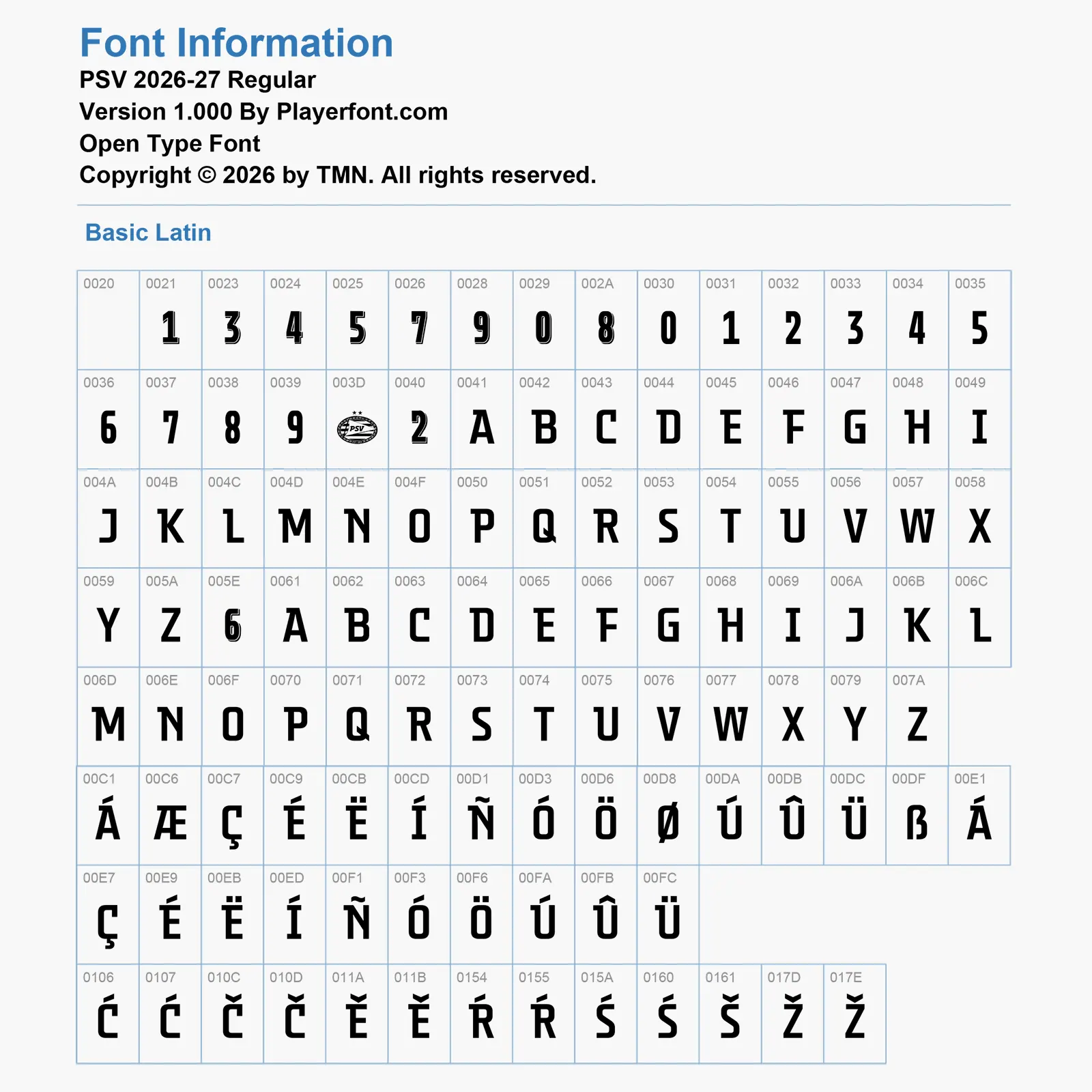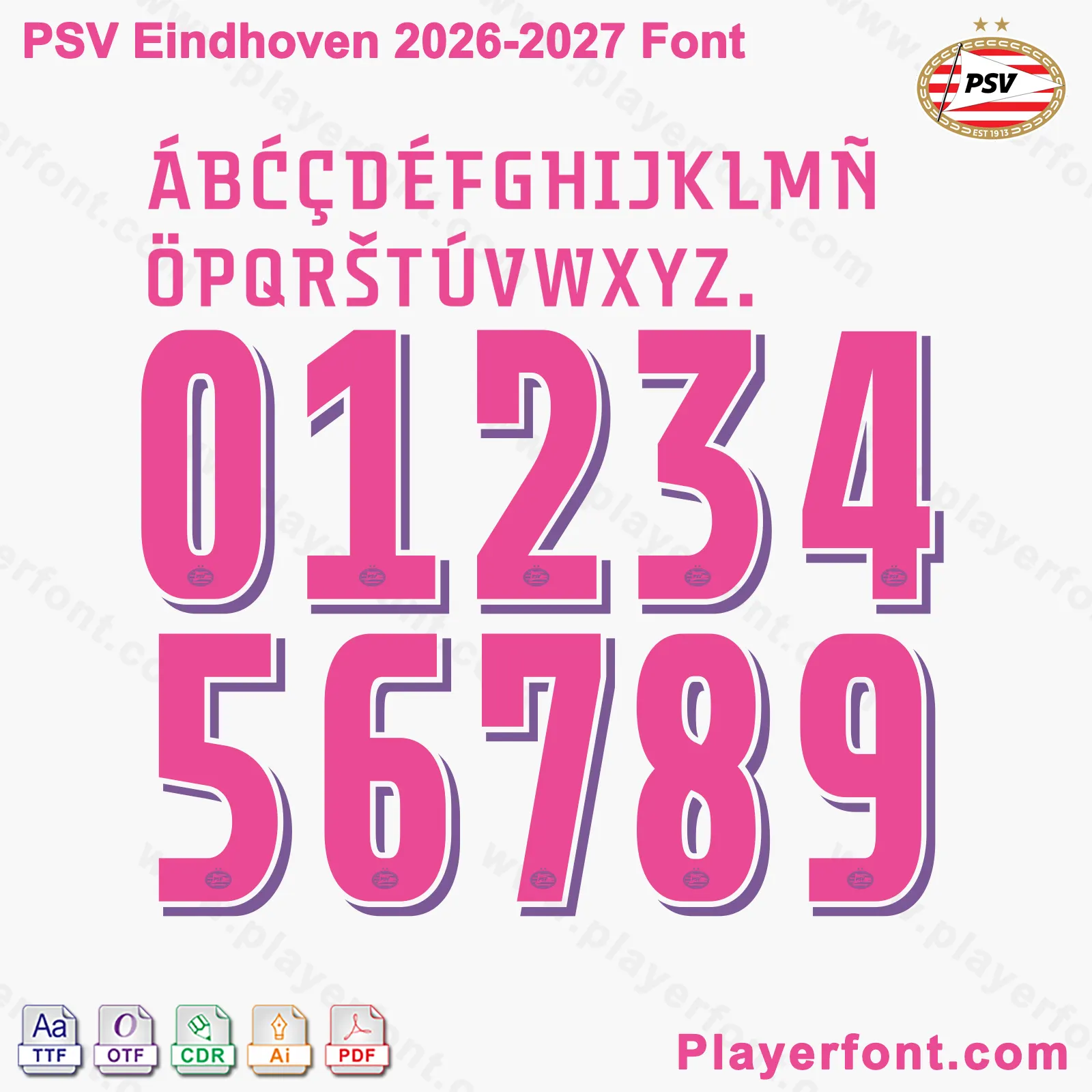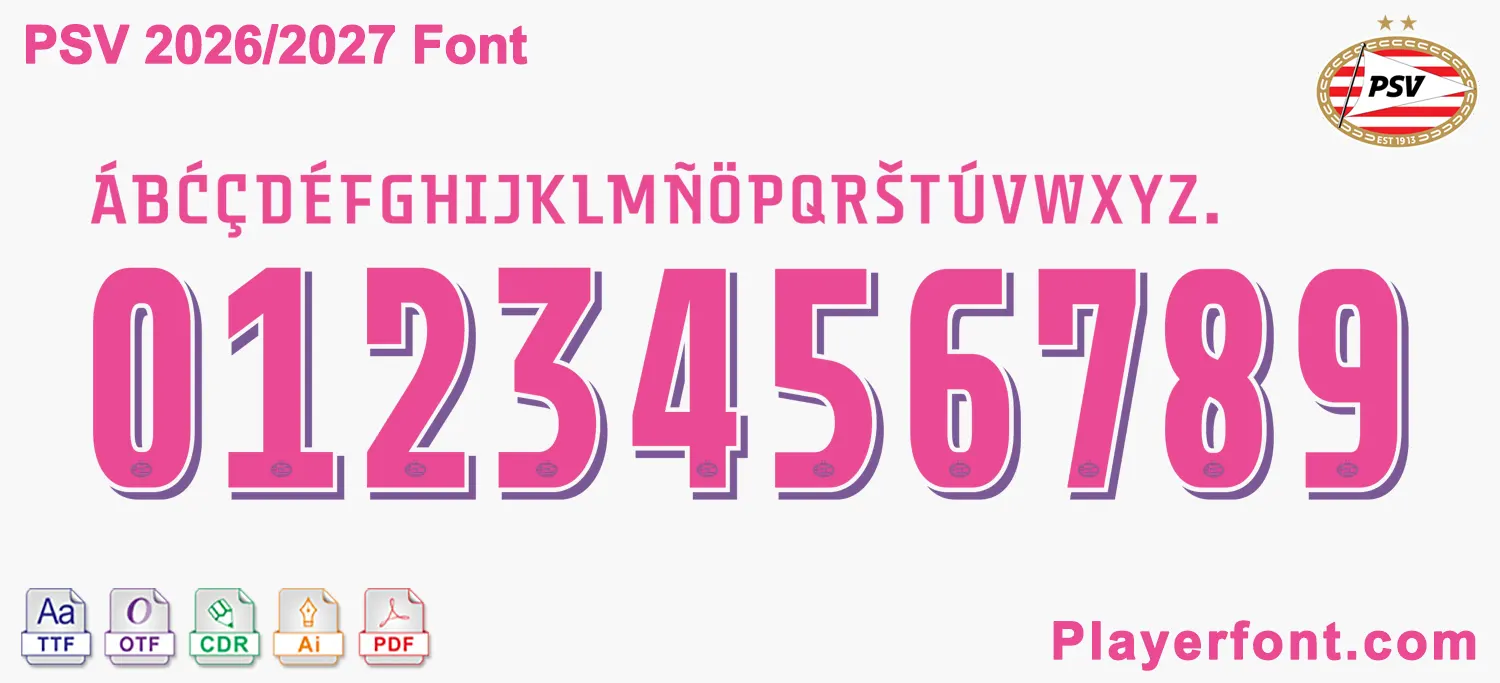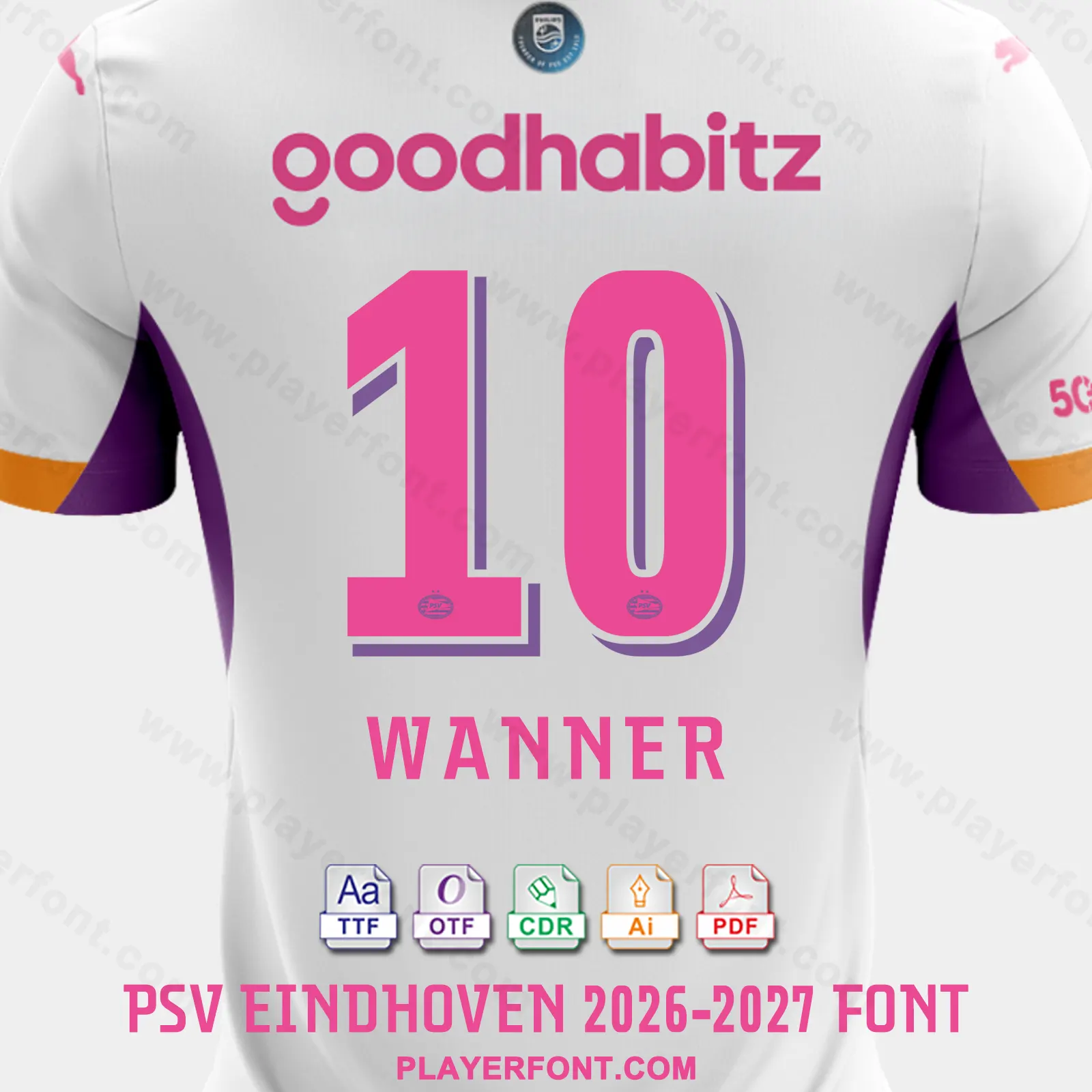
Download the premium PSV Eindhoven 2026-2027 Font Kit today! This complete typography pack includes high-quality TTF, OTF, AI, CDR, and PDF vector files, fully compatible with design software and garment printing. Features the complete alphabet string (with full multi-lingual accents) and retro-styled condensed block jersey numbers embedded with the club’s iconic crest and a sleek drop-shadow outline. Perfect for kit designers, sports customizers, and PSV fans.
Horizontal vector layout template of PSV Eindhoven 2026-2027 football kit numbers and full alphabet string.
Horizontal Vector Preview Banner for the 2026-27 PSV Eindhoven Font
Elevate your sports jersey mockups, football custom graphics, and vector apparel printing projects with the high-quality PSV Eindhoven 2026-2027 Font Download. Masterfully engineered by Playerfont.com, this high-performance typography set replicates the official-style condensed tall block numbers and crisp lettering featured on the pitch for the 2026-27 Eredivisie and European campaigns.
This typography pack is fully optimized to support international player rosters and diverse numbering layouts:
• Basic Latin Set: Contains the complete A-Z uppercase character set, tall condensed block numbers (0-9), punctuation marks, and periods.
• Advanced International Accent Support: Includes a complete set of accents (such as Á, Æ, Ç, É, Ë, Í, Ñ, Ó, Ö, Ø, Ú, Û, Ü) ensuring flawless rendering for Dutch and global league stars.
• Authentic Club Details: The intricate circular PSV Eindhoven club crest is beautifully embedded right into the base of each jersey number, combined with a stylish parallel line inner accent and a clean drop-shadow offset layer for maximum design depth.
Design Feature Condensed Block Geometry with Inner Inline Accent & Drop-Shadow Outlines